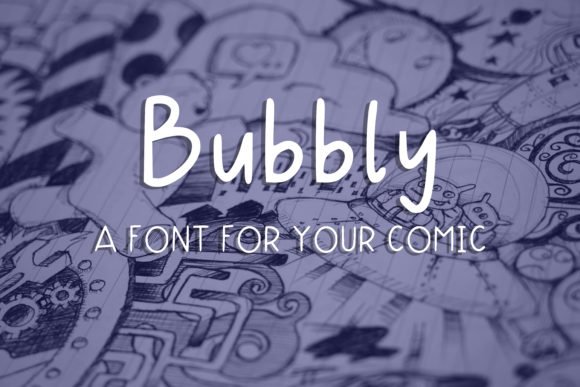
When Creativity Strikes
Have you ever been in the midst of a design project, scrolling through font options, and suddenly, you stumble upon that perfect match? It’s like a spark of inspiration hits you, and you know exactly how your design will come together. For many designers, this moment is the highlight of their creative journey.
One such font that has captured the hearts of designers is the Bubbly Font. Its playful, handwritten style makes it an ideal choice for various designs, from greeting cards to social media graphics. The Bubbly Font’s natural charm and uniqueness are what make it so valuable for designers, allowing them to add a personal touch to their creations.
Bubbly Font Key Features
- Font Family: Bubbly Font is a sans-serif font family, designed to evoke a playful and modern feel.
- Font Size: Supports a wide range of font sizes, from 8pt to 72pt, making it suitable for various design applications.
- Unique Characteristics: The Bubbly Font features a unique blend of rounded and geometric shapes, creating a distinctive and eye-catching appearance.
- Language Support: Supports a wide range of languages, including Latin, Cyrillic, and Greek alphabets, making it a versatile choice for global design projects.
Bubbly Font Review
I recently had the chance to work with the Bubbly Font, and I have to say, it’s a unique and playful addition to any design project. ✨ The font’s rounded edges and bubbly texture give it a friendly, approachable feel that’s perfect for children’s books, greeting cards, or other projects where a lighthearted tone is desired.
Here are some of the things that I like about the Bubbly Font:
- Its versatility: the font works well in both digital and print formats.
- Its customization options: the font can be easily customized to fit any design project’s needs.
- Its uniqueness: the font’s bubbly texture sets it apart from more traditional fonts.
However, I do have some reservations about the Bubbly Font. ⚠️ The font’s texture can be overwhelming if used extensively, and it may not be suitable for projects where a more professional tone is desired.
Overall, I think the Bubbly Font is a great choice for designers looking to add some personality to their projects. While it may not be suitable for every project, it’s a fun and creative addition to any design toolkit.
The Bubbly Font is ideal for creating playful and eye-catching designs, such as:
- Children’s party invitations
- Social media graphics
- Wedding invitations
Remember to experiment with different font sizes, colors, and styles to get the most out of the Bubbly Font.
Creative Projects Using Bubbly Font
Bubbly Banners
Create eye-catching banners for parties, events, or social media promotions using the Bubbly Font. This playful font adds a fun and lively touch to your designs.
What is the recommended font size for the Bubbly Font?
The recommended font size for the Bubbly Font is between 12pt and 24pt. This size range provides the best balance between readability and visual appeal. However, you can experiment with different font sizes to find the perfect fit for your design.